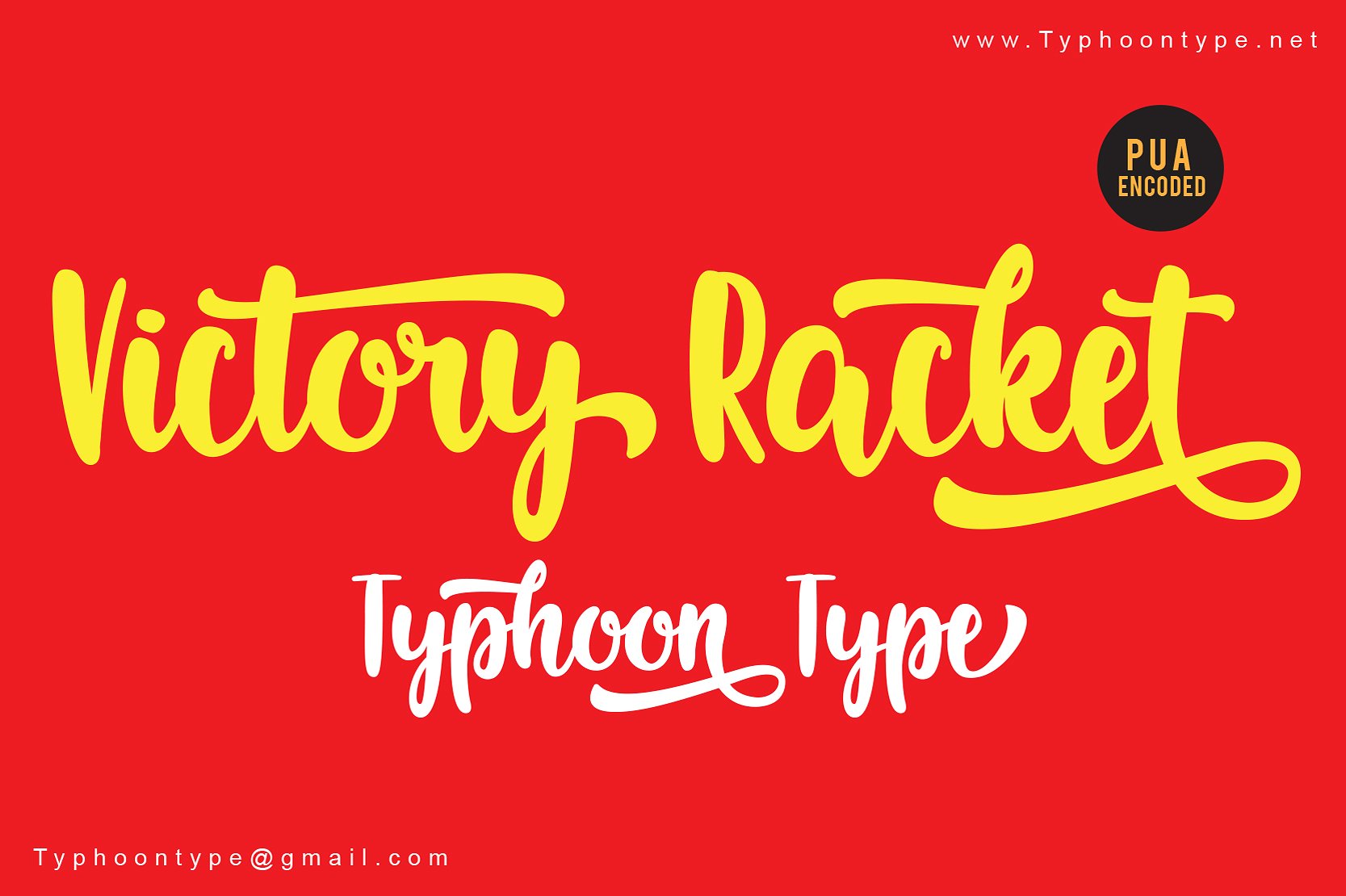
Victory Racket Script Font – Free Demo
Hello Type Lovers. The best free font package today is a contemporary script font. Introducing Victory Racket Font! Victory Racket designed by TyphoonType – S. Srisopha. Victory Racket Script Font is a modern hand writting script, energetic, organic, and dynamic, can be used for various purposes. It has his own unique style in expressed perfect condensed forms. Victory Racket is ideal for display text, print and and also for user interfaces, mobile devices, web design and posters, with a set of optimal characters for your design in any layout.